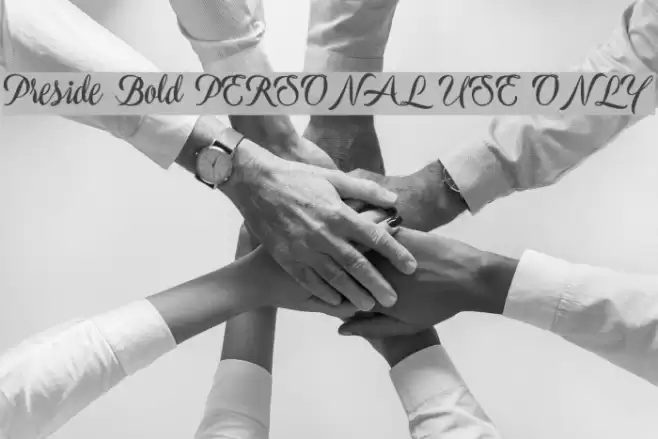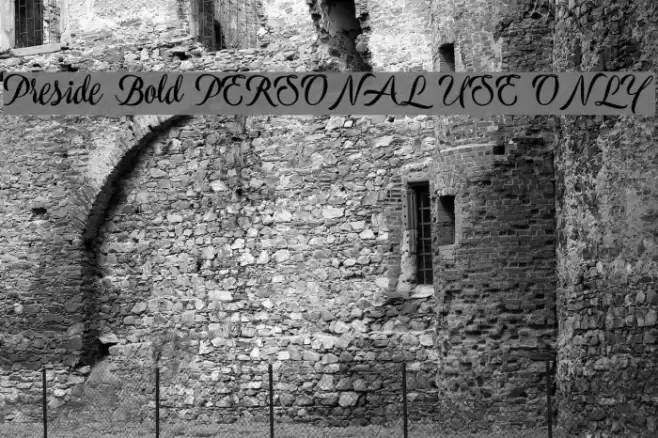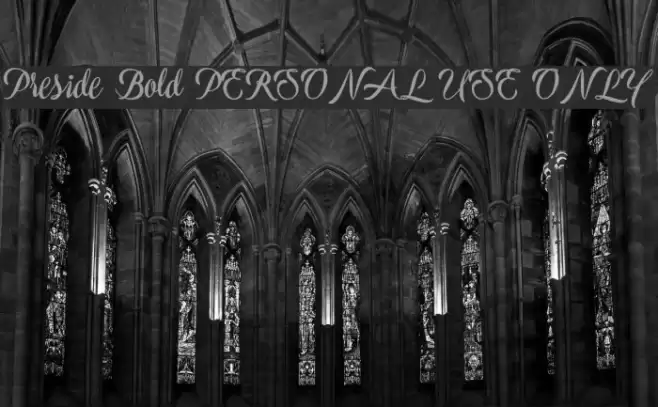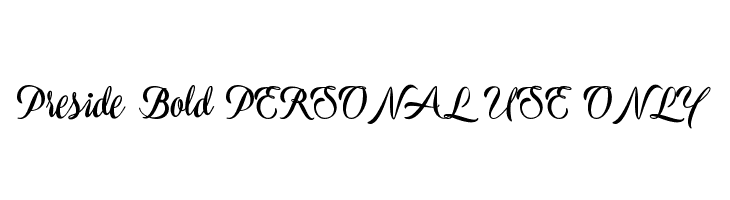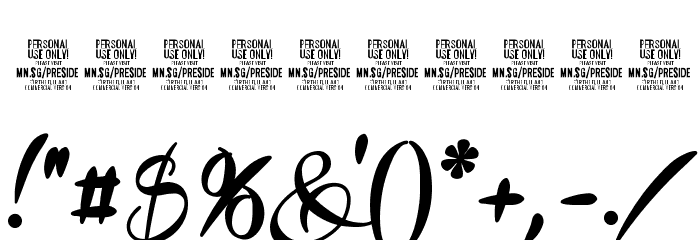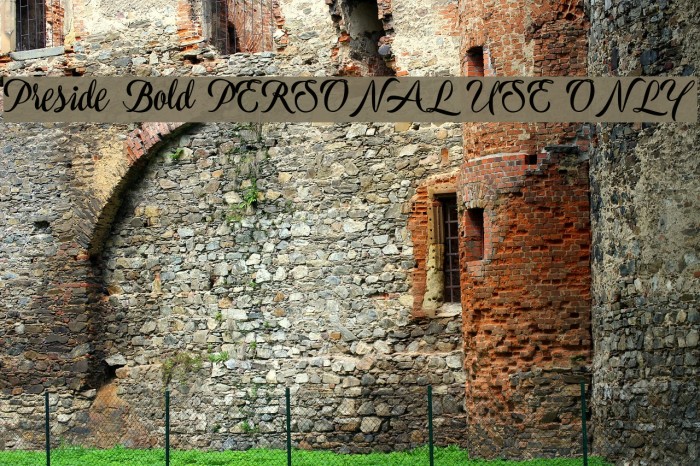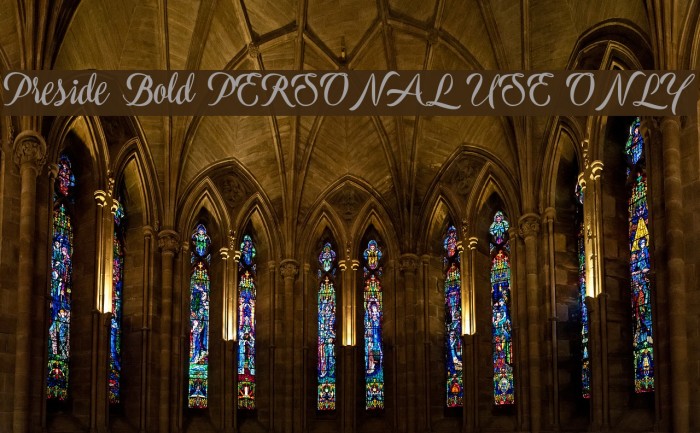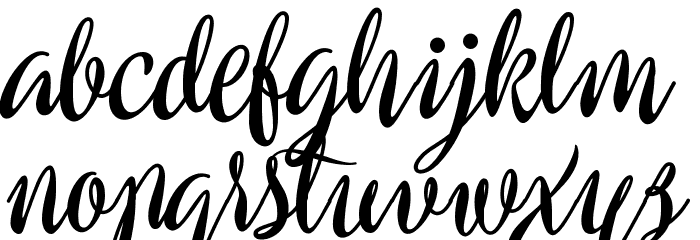
Preside Bold PERSONAL USE ONLY Font
Preside Bold PERSONAL USE ONLY Description
This font features an elegant and flowing script style, characterized by its bold and expressive strokes. The uppercase letters are ornate, with sweeping curves and flourishes that give a sense of movement and grace. The lowercase letters maintain a consistent style, with smooth connections between characters, enhancing the font's fluidity. The numerals and special characters are designed to match the overall aesthetic, ensuring a cohesive look across all text. This font's boldness and decorative nature make it stand out, while its script style adds a touch of sophistication and elegance.
A bold, elegant script font with flowing, decorative strokes from Script fonts.
- Proposed Projects: Ideal for wedding invitations, branding, greeting cards, and elegant logos.
- Use Case: Logos, Invitations, Decorative Text